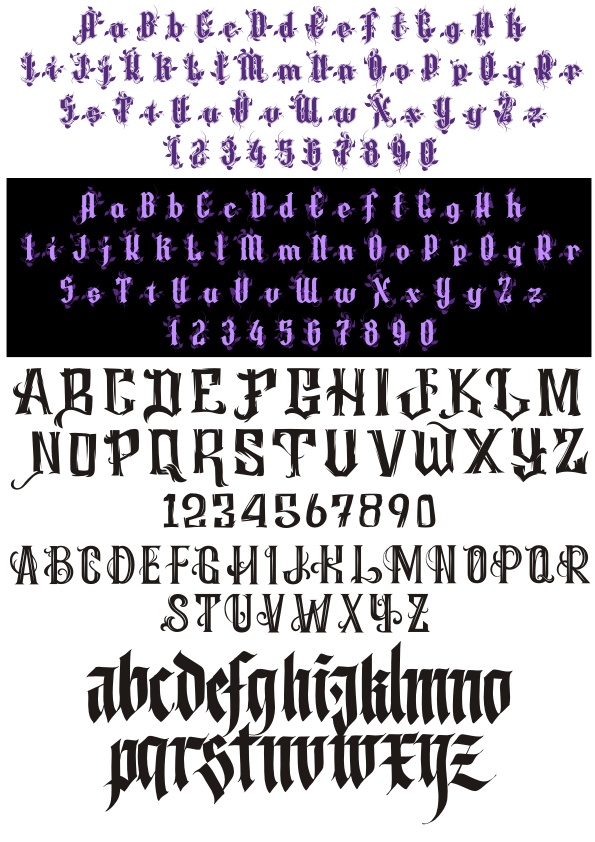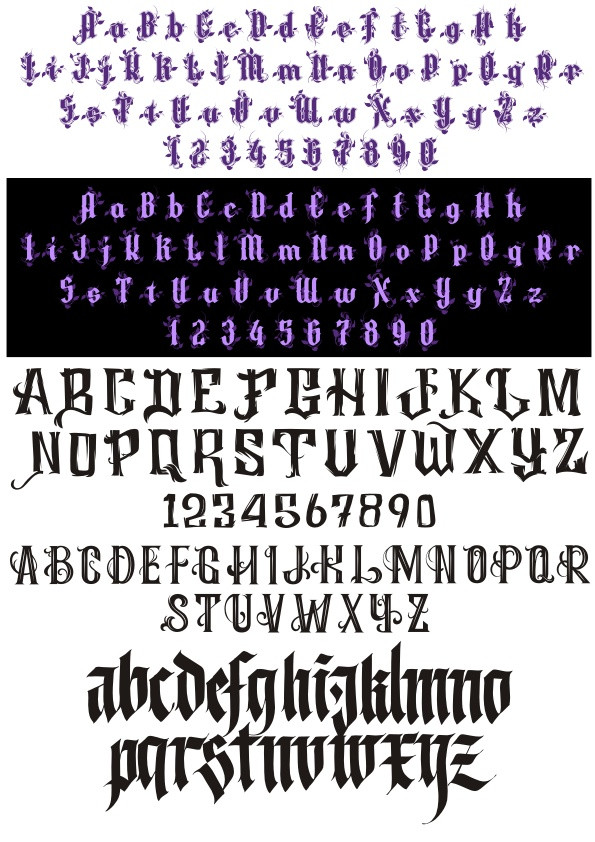
Gothic and Blackletter Typeface Alphabet Sets with Numbers Free Vector
Collection of ornate gothic and blackletter style alphabets including uppercase and lowercase letters, along with numbers, displayed on different backgrounds.